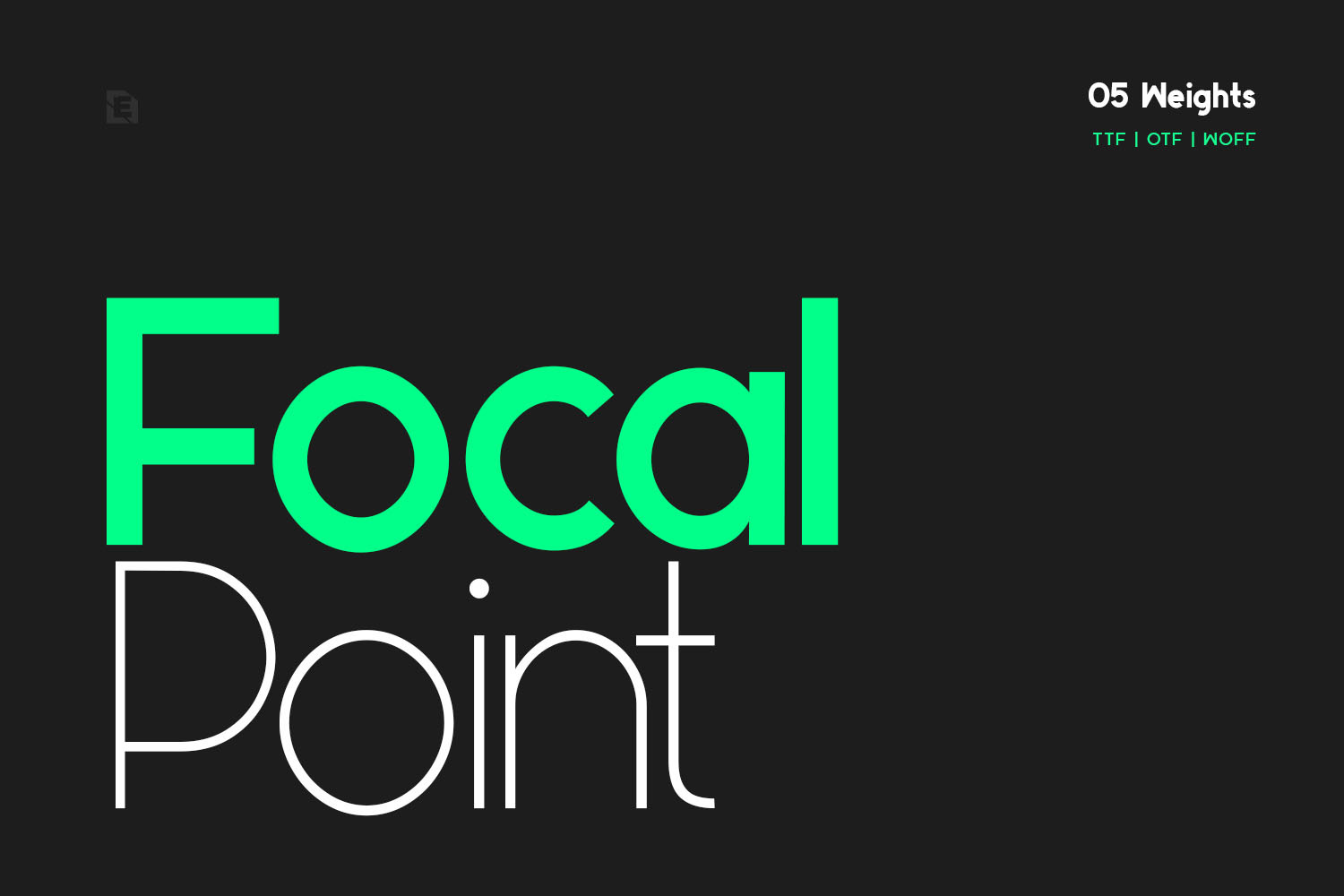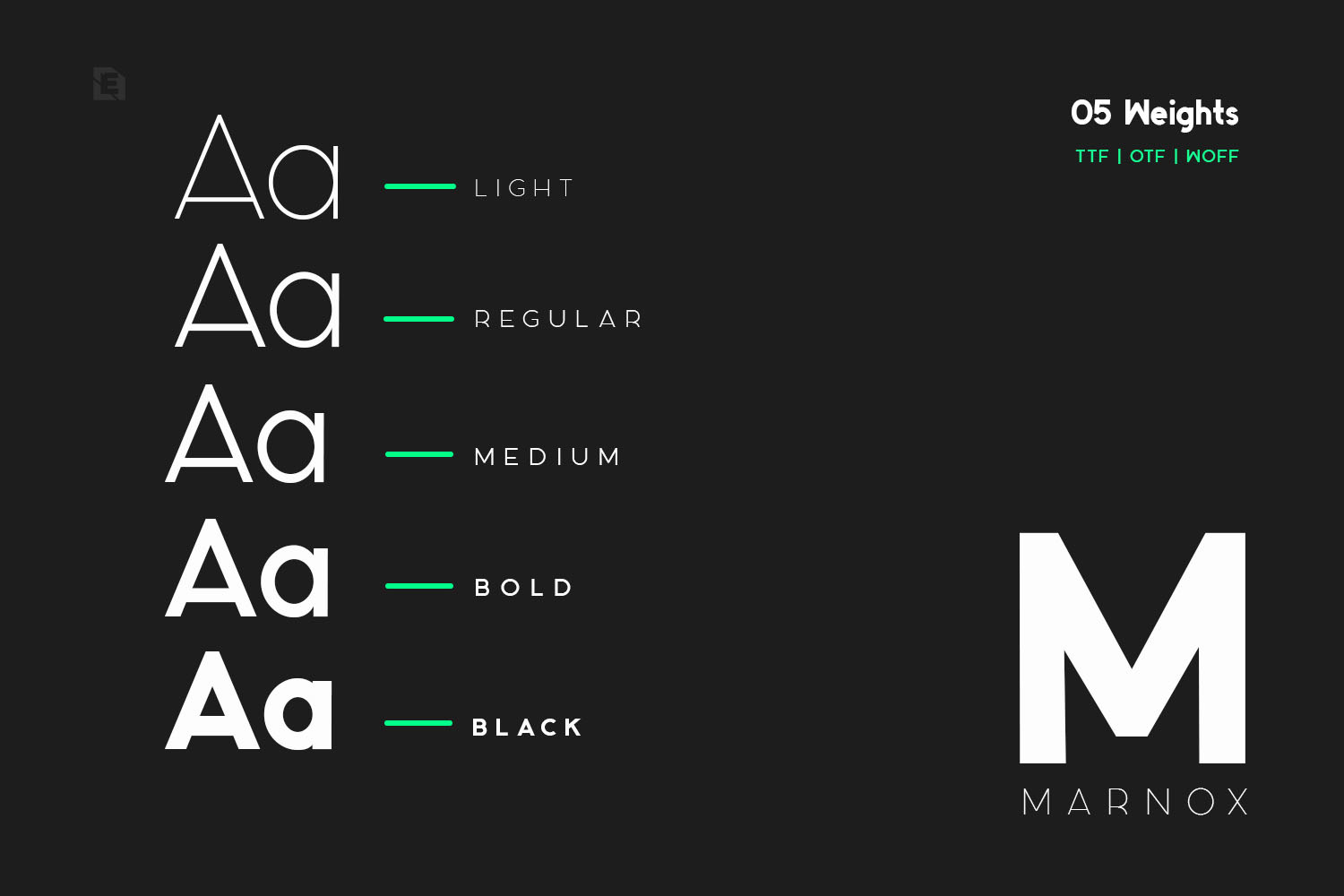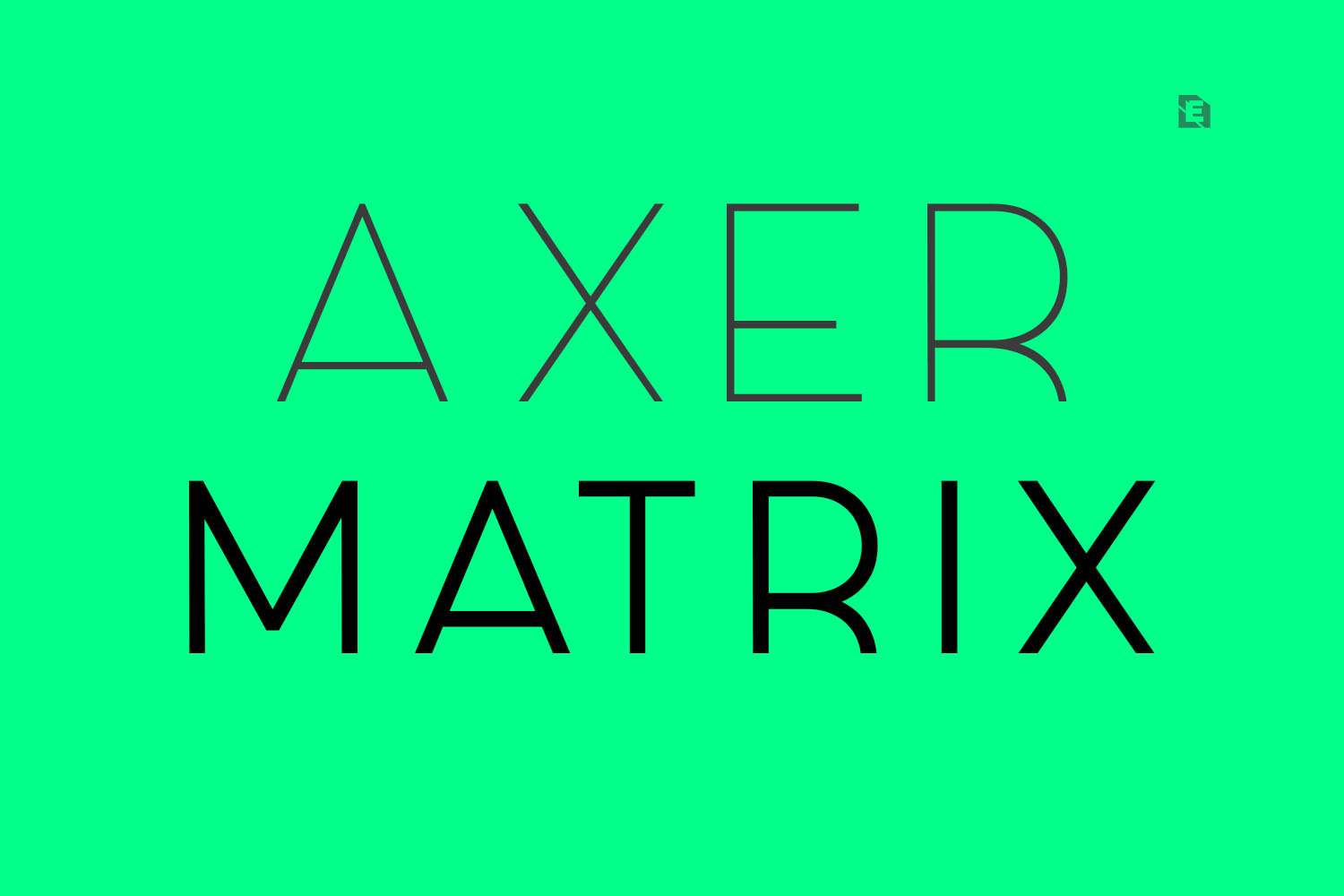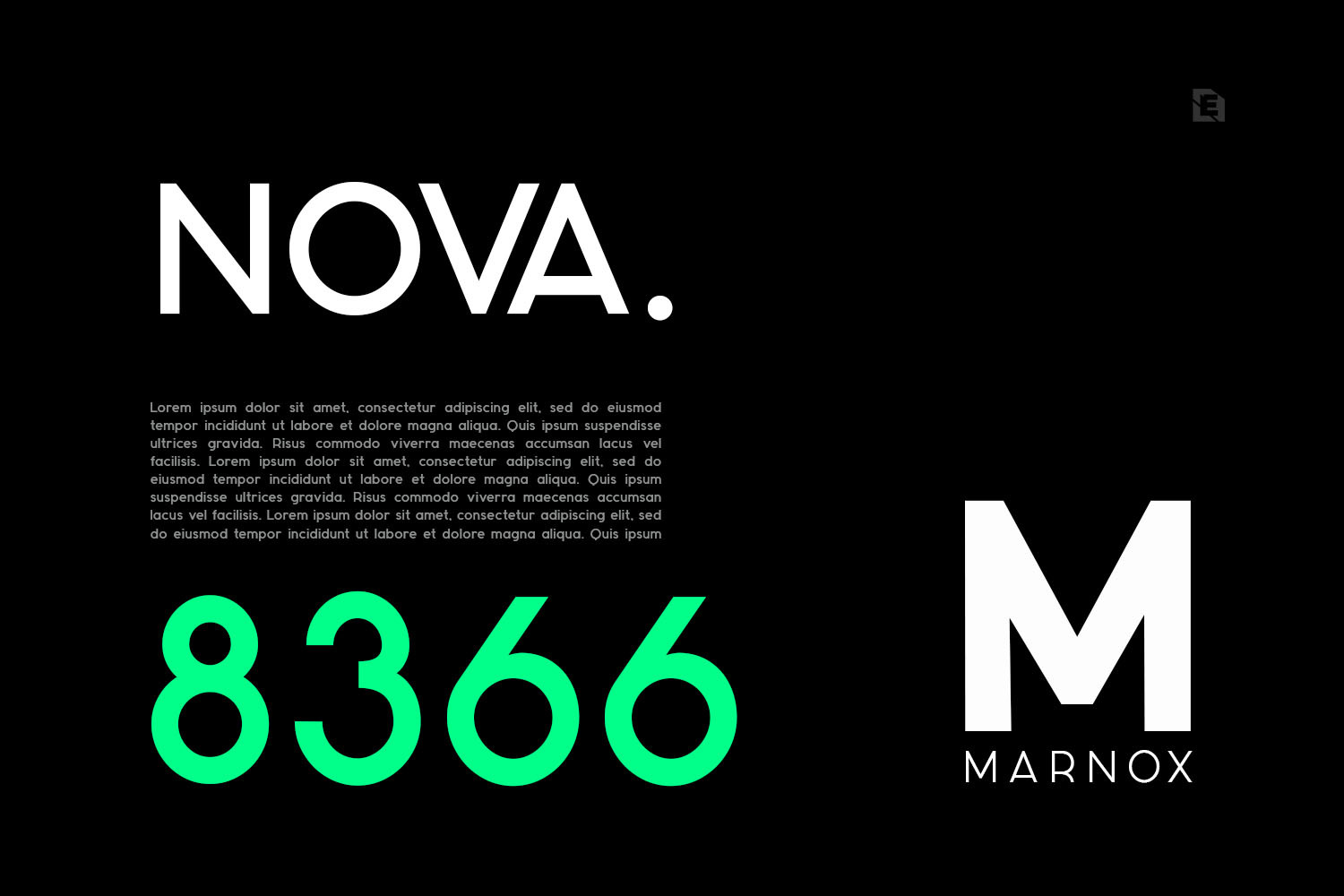
Marnox Font
Marnox is a modern sans serif typeface. This font provides modernity, readability, and originality. After many months of work and reflection, we have come to the end of this project, and we are happy to present it to you! It is typography from the sans serif category, A work of precision and rigor carried out by the typographer
This modern sans serif typeface is perfect if you have branding projects. Its unique style will allow you to reveal your brand from a new angle. A stunning typeface will draw the eye of many customers to your brand.
You can easily use the font feature in many areas. You can create your text with normal characters and highlight bold characters and titles.
This font has 200 above glyphs and extensive Latin script support and upper and lowercase sans serif characters. It carries a powerful, unique, and social character line with a premium finish, giving a new impression. Add it confidently to your favorite creations and let yourself be amazed by the outcome generated.